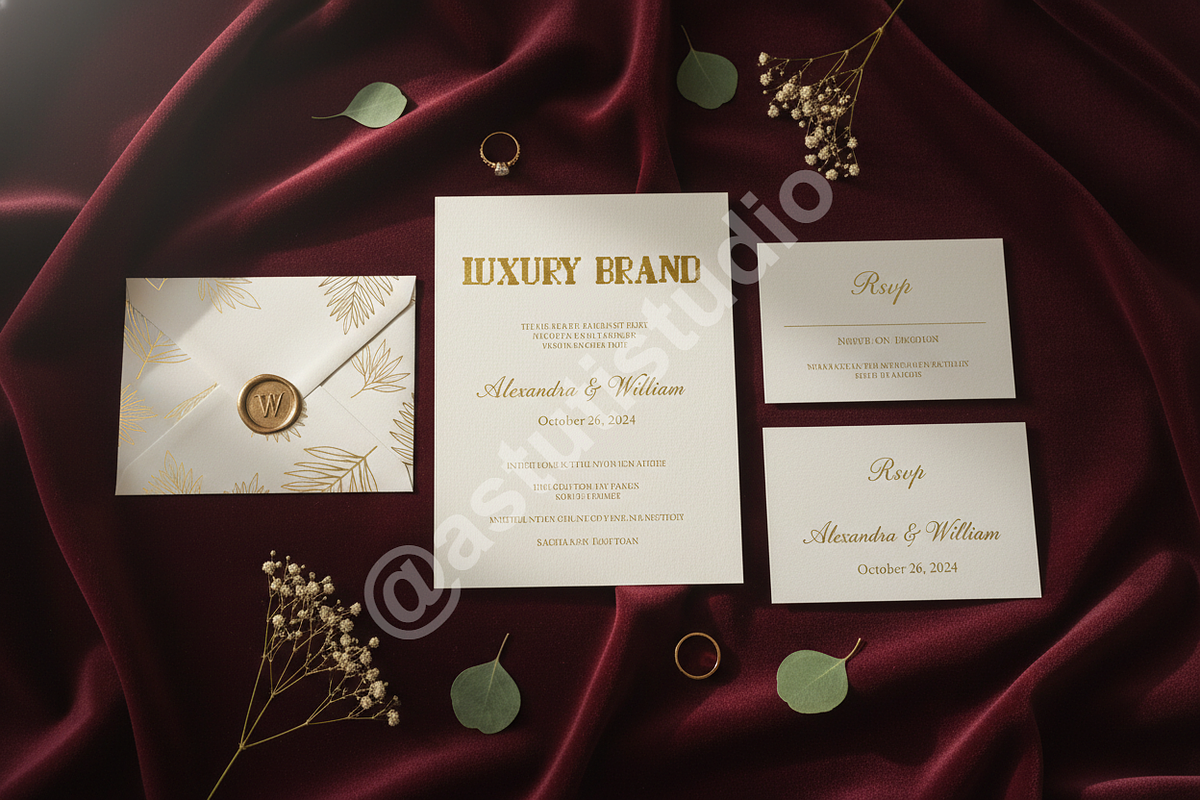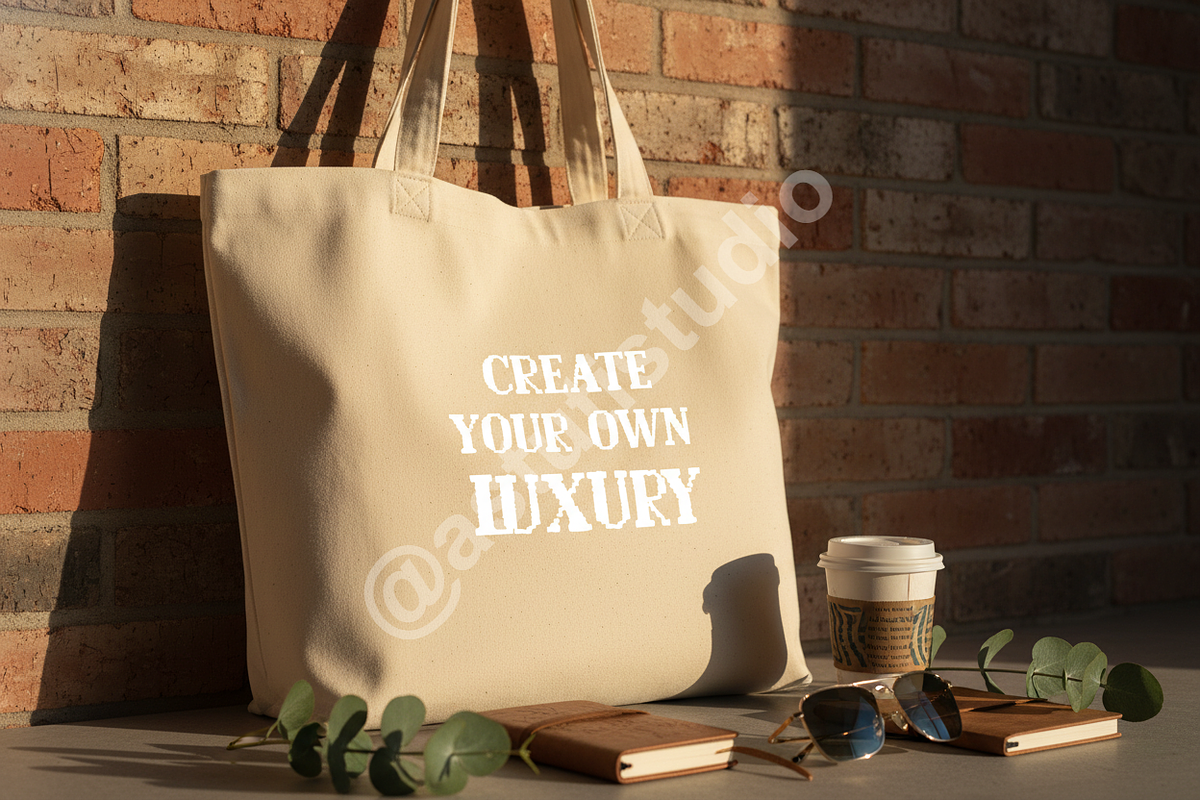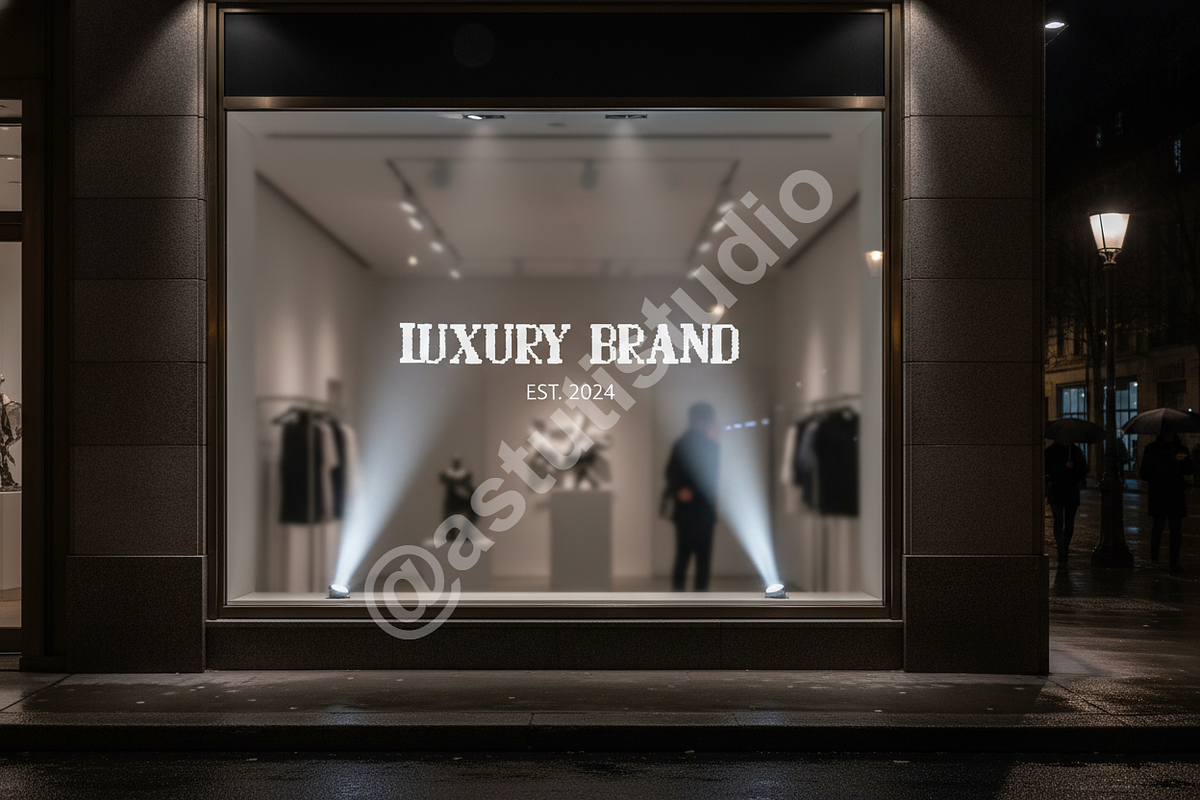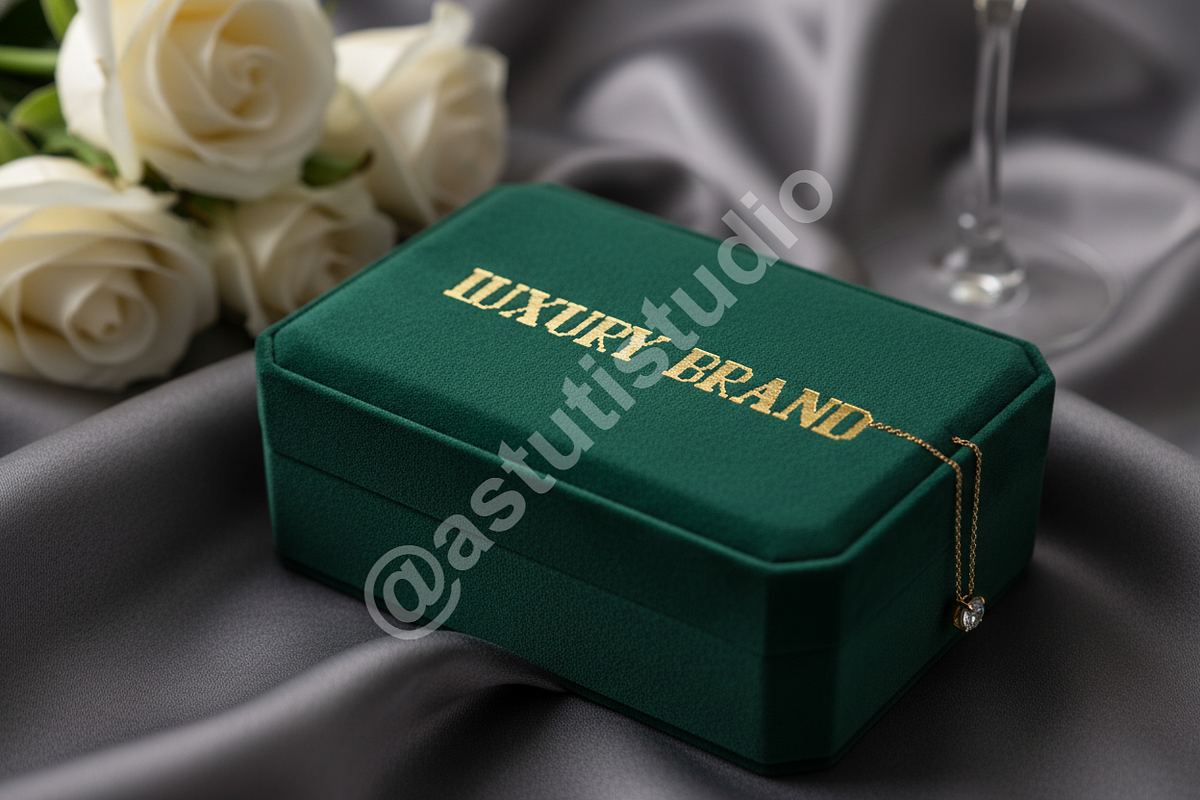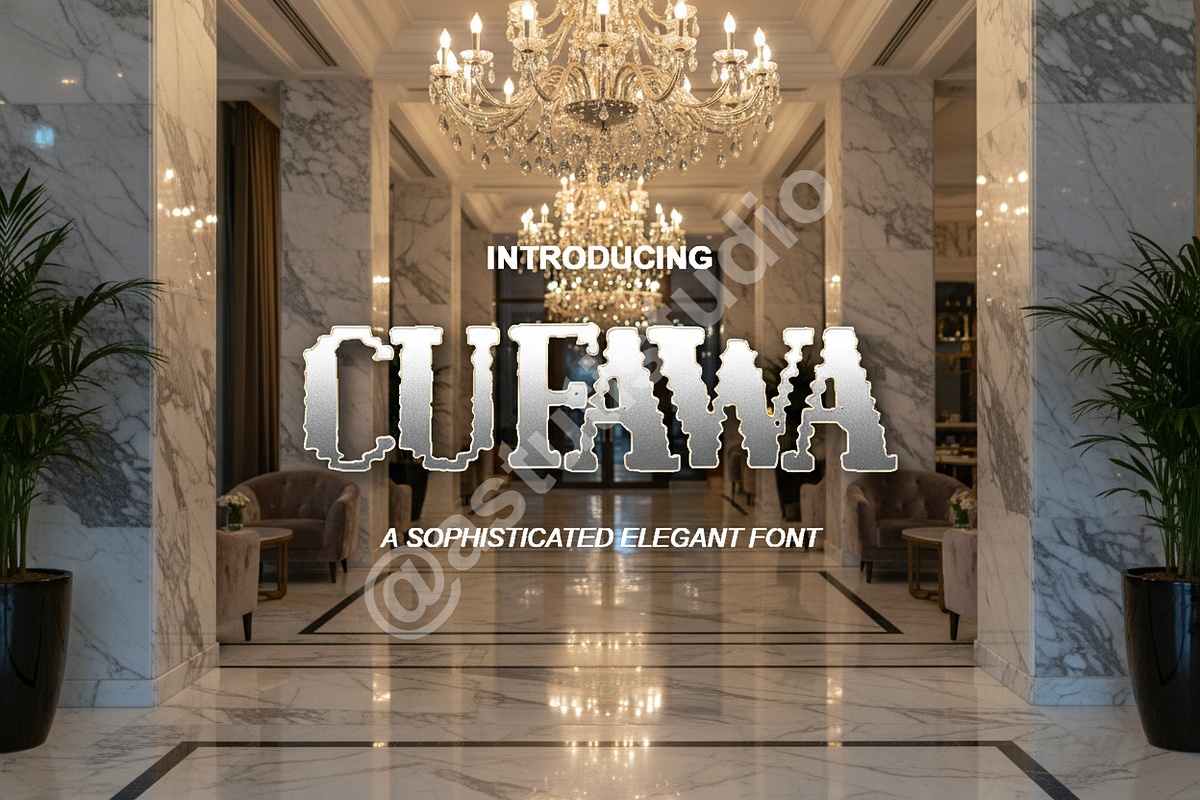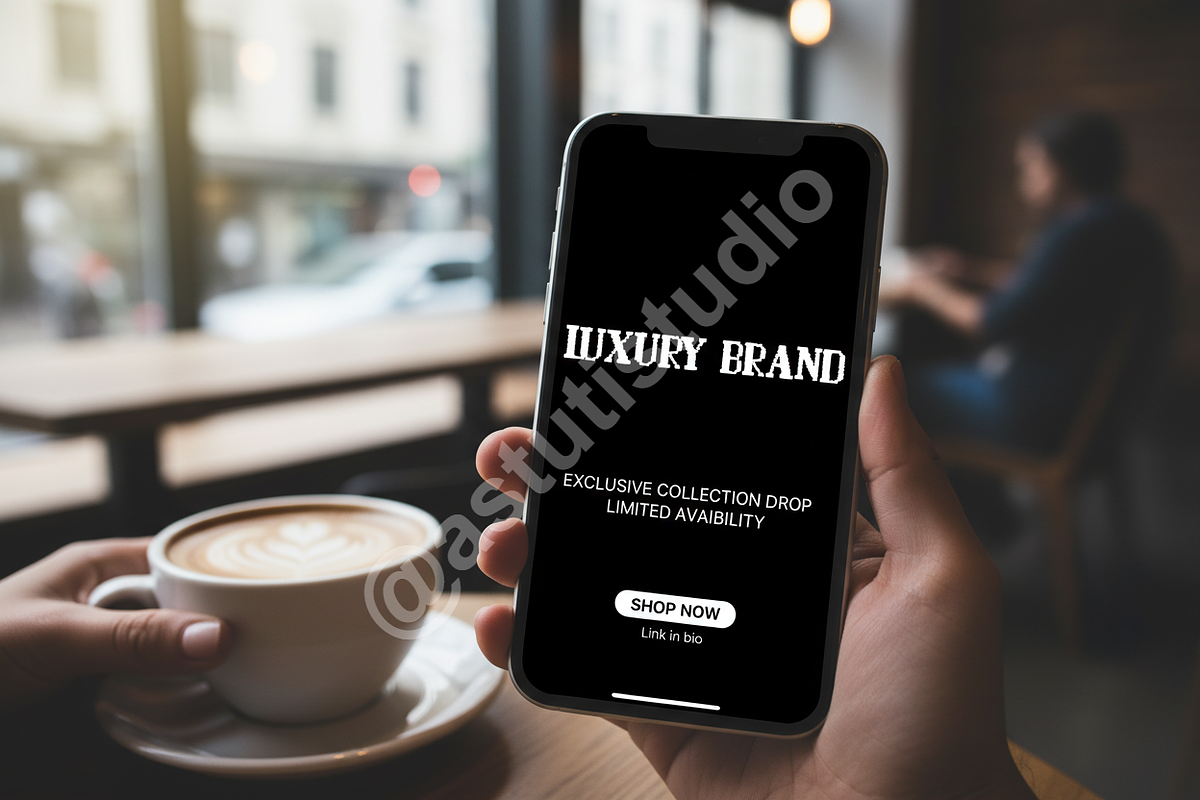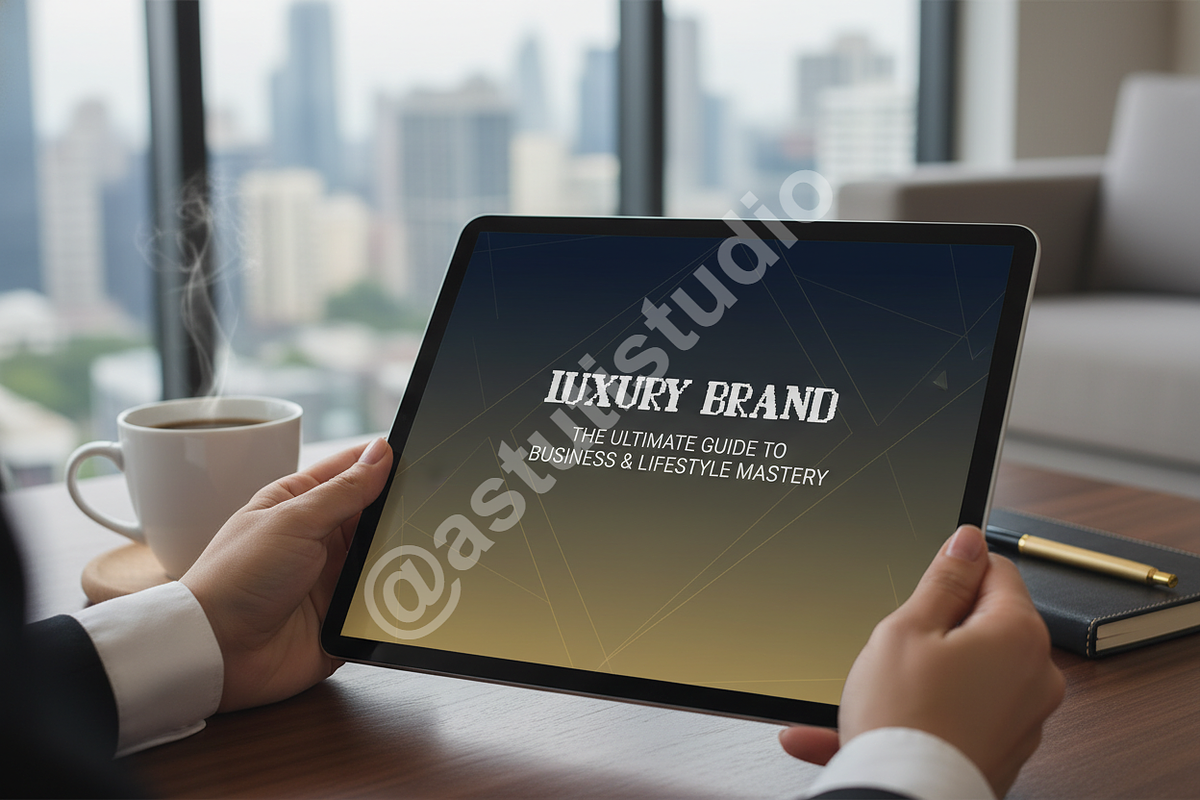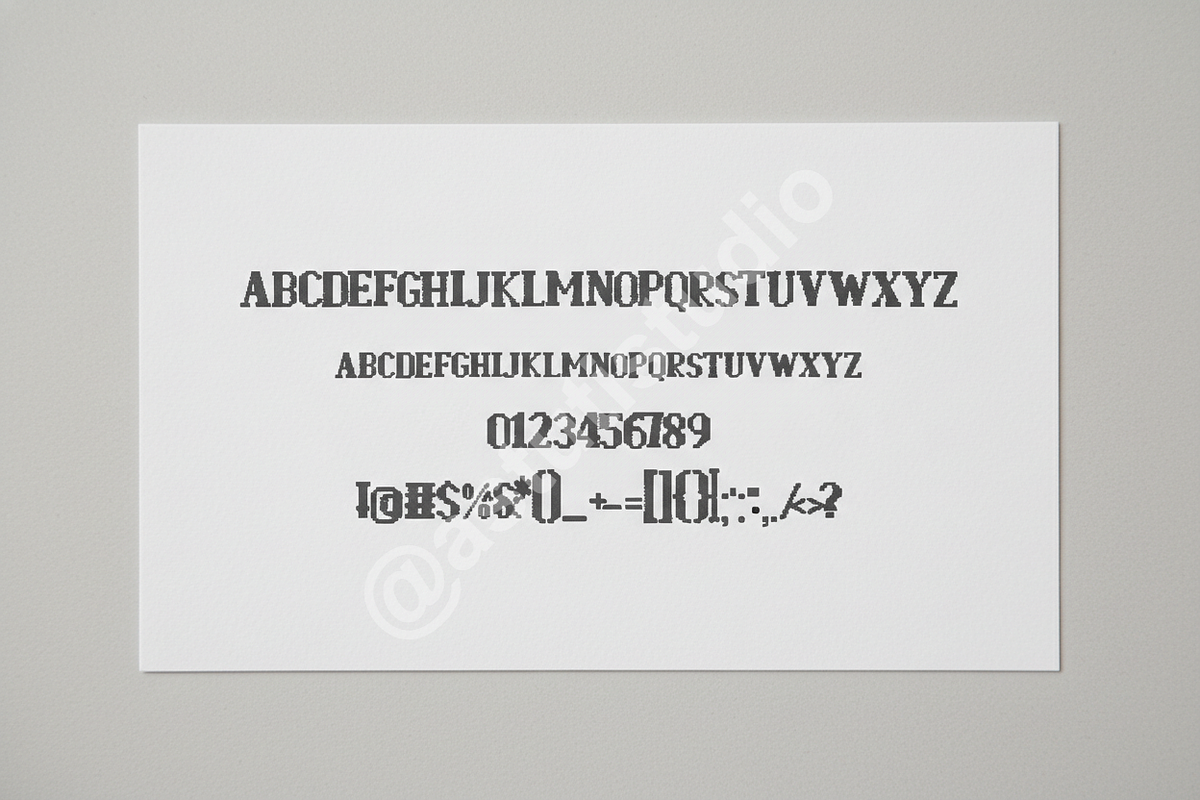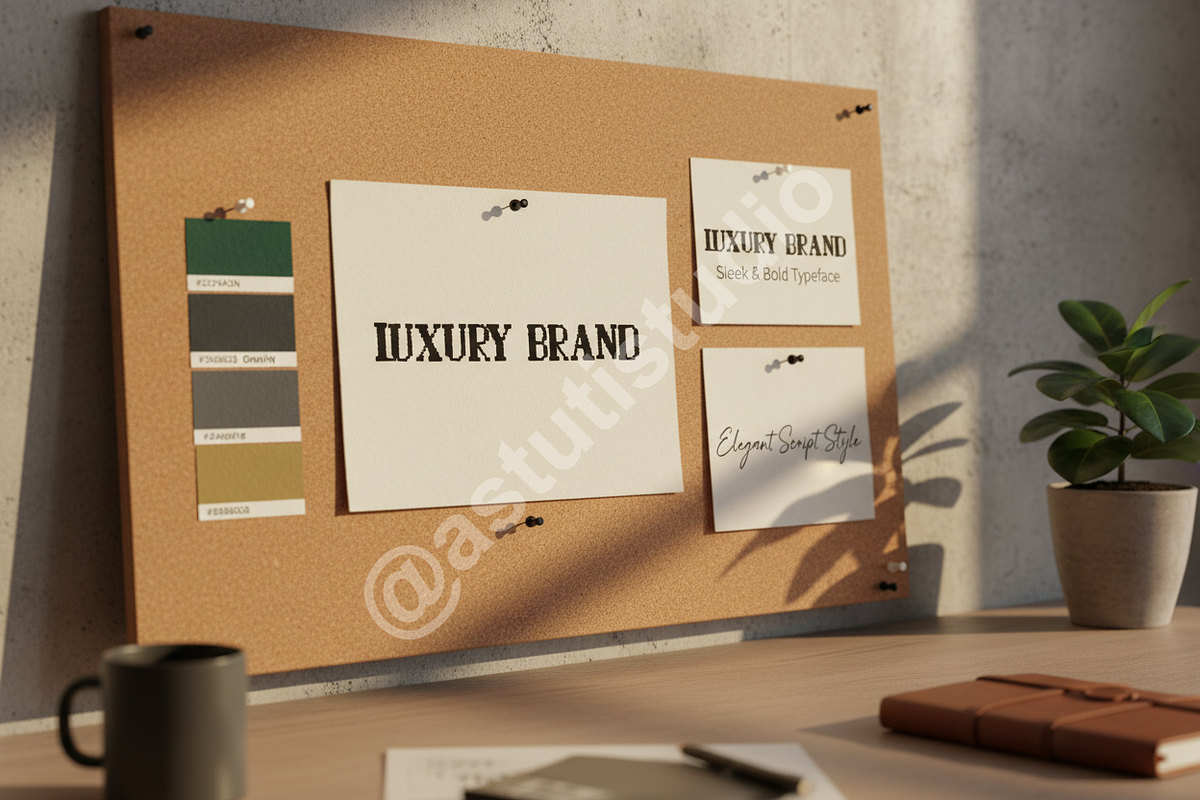
Cufawa | Elegant High-Contrast Serif
Cufawa is a meticulously crafted, high-contrast serif typeface designed for the discerning creative. Drawing inspiration from classic luxury aesthetics and modern minimalism, Cufawa embodies sophistication and timeless elegance. Its razor-sharp terminals and delicate transitions make it the quintessential choice for projects requiring a touch of refined glamour, making it perfect for luxury branding, editorial design, and impactful social media campaigns.
KEY FEATURES
- High-Contrast Display: Striking thick-thin letterforms designed to capture immediate attention.
- Extensive Multilingual Support: Covers Western and Central European languages for broad reach.
- OpenType Features: Includes standard ligatures and stylistic alternates for enhanced typographic control and unique customizability.
- Optimized for Scale: Flawless rendering for both expansive editorial headlines and subtle packaging details.
- Versatile Application: Ideal for high-end fashion magazines, exclusive product packaging, and sophisticated digital media.